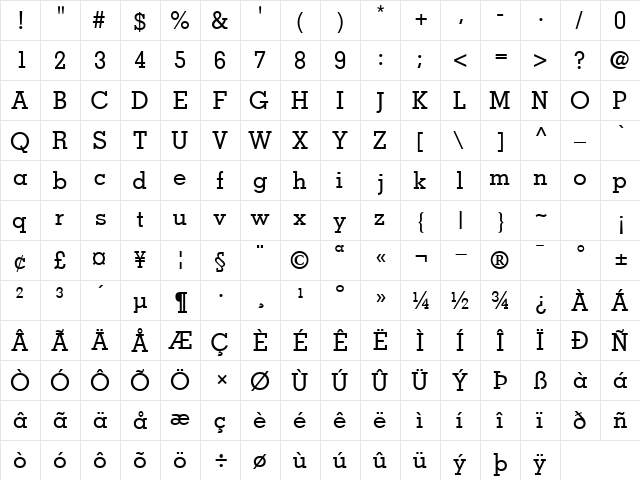
JaakSSK Regular
Design Context for JaakSSK Typeface
JaakSSK offers clean, dependable letterforms without strong stylistic allegiance, making it a practical choice for designers who need flexibility.